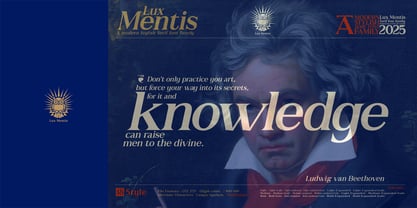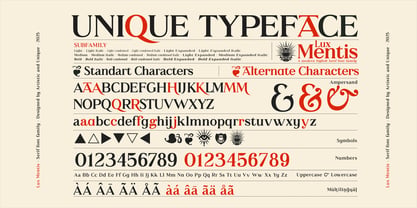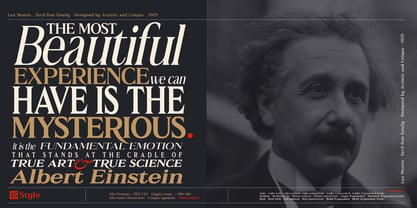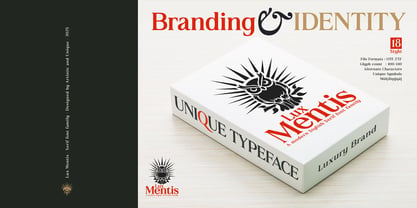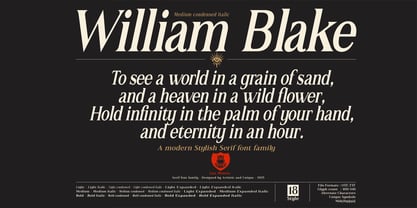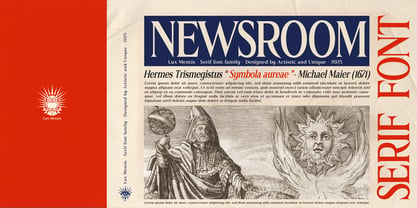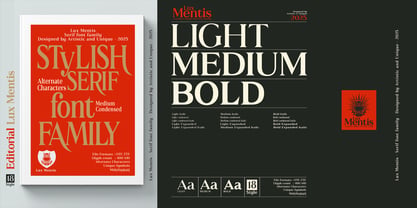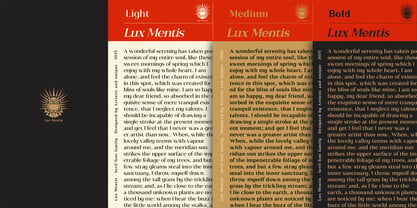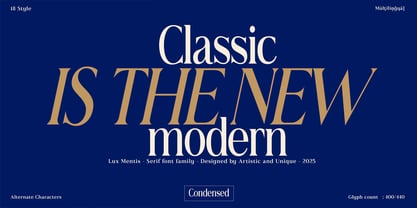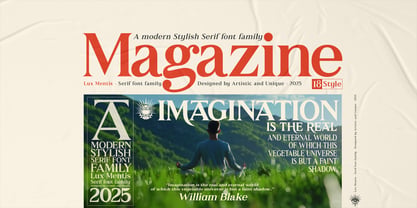
Lux Mentis
The Lux Mentis Font Family was designed by Osman Taner Kucukgenc and published by Artisticandunique. Lux Mentis contains 18 styles and family package options. More about this family
Lux Mentis - Serif Font Family - 18 Styles - Multilingual Support.
Lux Mentis is a classic serif font enriched with modern nuances. This elegant font is designed to enhance modern design projects with its rich glyph options and striking, alternative characters. Lux Mentis's sharp corners provide flexibility with varying contrast levels while also adding a sophisticated look; it's perfect for both ornate headlines and elegant body text.
In editorial design, it offers high readability with an impactful look for both print and digital publications. It captures a nostalgic look while expanding the range of contemporary designs.
Strengthen your brand identity with a striking look and capture the right atmosphere in your logo design.
Features:
- Multilingual support,
- 6 different styles,
- Style alternatives,
- Rich glyph options (440),
- Perfect for branding and editorial design,
- Suitable for web and logo design,
- Alternative characters and additional symbols.
Ideal for branding, luxury packaging, and editorial design, Lux Mentis offers stylish and decorative possibilities with its rich array of alternative characters. Its versatile and robust structure creates a powerful impact and is perfectly suited to a wide range of projects that suit the font's character.